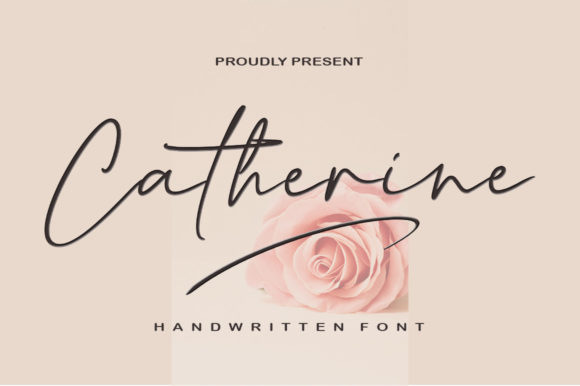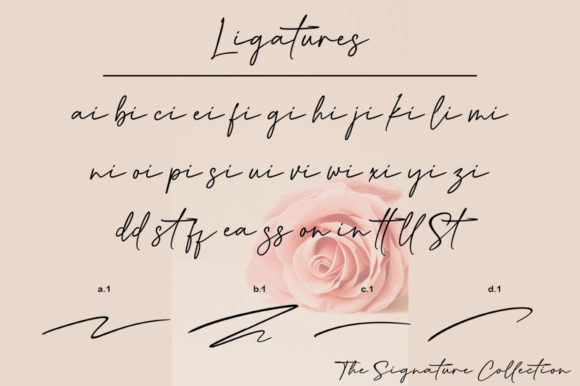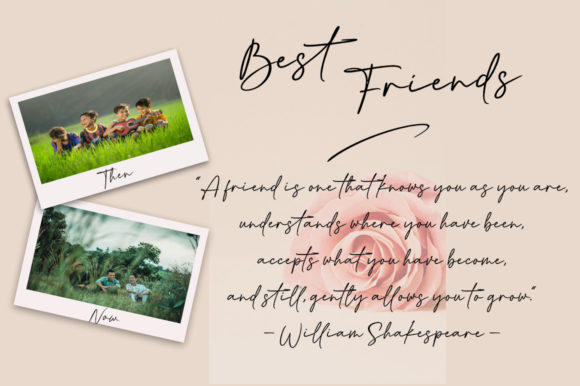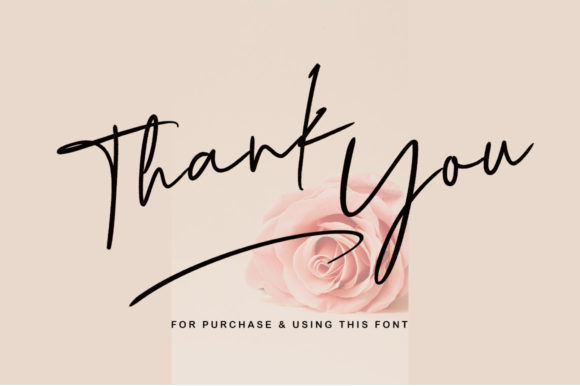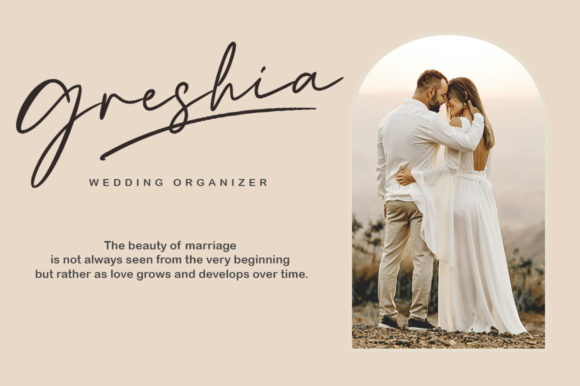
Catherine Font
About Catherine Font
Catherine is a stylish, thin lettered and elegant script font. It is PUA encoded which means you can access all of the glyphs and swashes with ease!